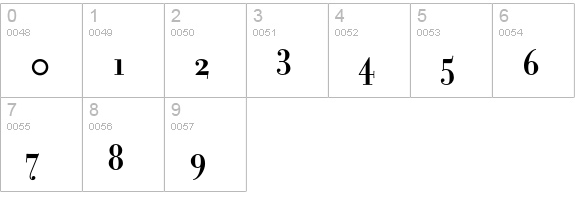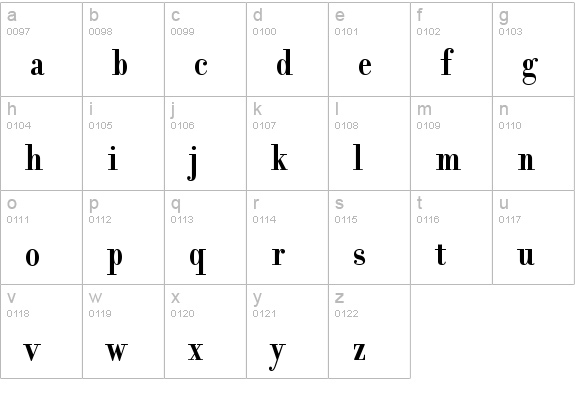
FilosofiaGrandBold Font Details
FilosofiaGrandBold is a stunning and versatile font that exudes elegance and sophistication. With its bold and commanding presence, this font is perfect for making a strong statement in any design project. The sharp, clean lines and timeless style of FilosofiaGrandBold make it a go-to choice for conveying a sense of power and authority. This font is not only visually striking, but it also offers excellent readability, making it suitable for a wide range of applications, from branding to editorial design. Whether you're creating a logo, poster, or website, FilosofiaGrandBold will help you stand out from the crowd and leave a lasting impression on your audience. Best of all, FilosofiaGrandBold is available for free download at FontsMarket.com. So you can add this exceptional font to your collection without breaking the bank. Don't miss out on the opportunity to elevate your designs with the timeless beauty of FilosofiaGrandBold. Download it today and unleash your creativity!